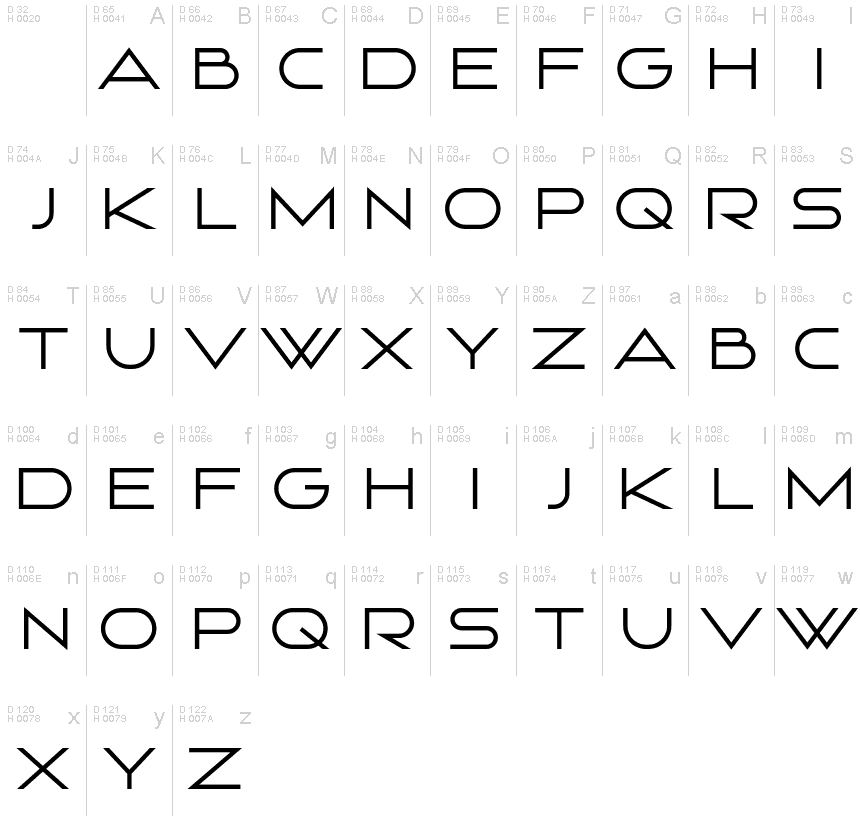
Card Player Regular
Card Player, a exquisite creation by Vladimir Nikolic, is the perfect font to add a touch of elegance and sophistication to your projects. With its sleek and modern sans serif style, this semi-light typeface brings a sense of professionalism to any design. The extra-expanded width allows for maximum readability and impact.
Ideal for designing high-end invitations, luxury brand logos, or even creating stunning blog headers that demand attention. Let Card Player elevate your designs with its timeless beauty and refined aesthetic.